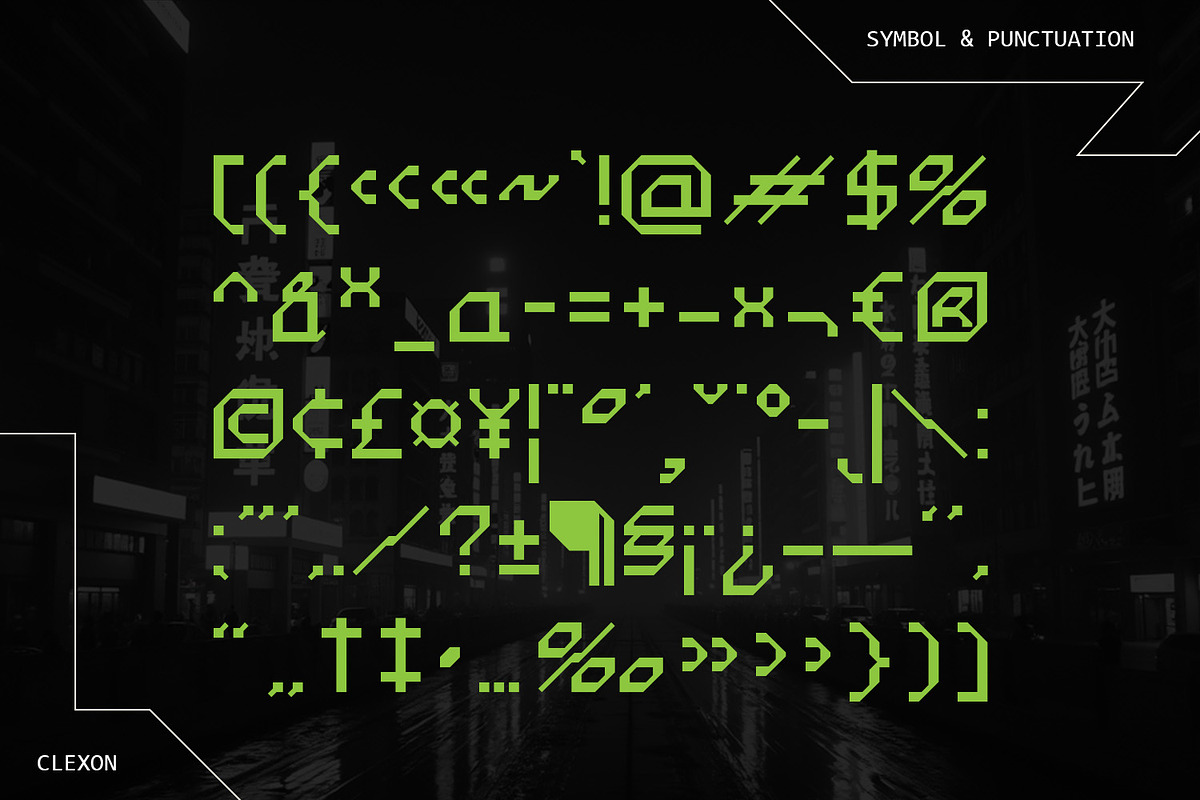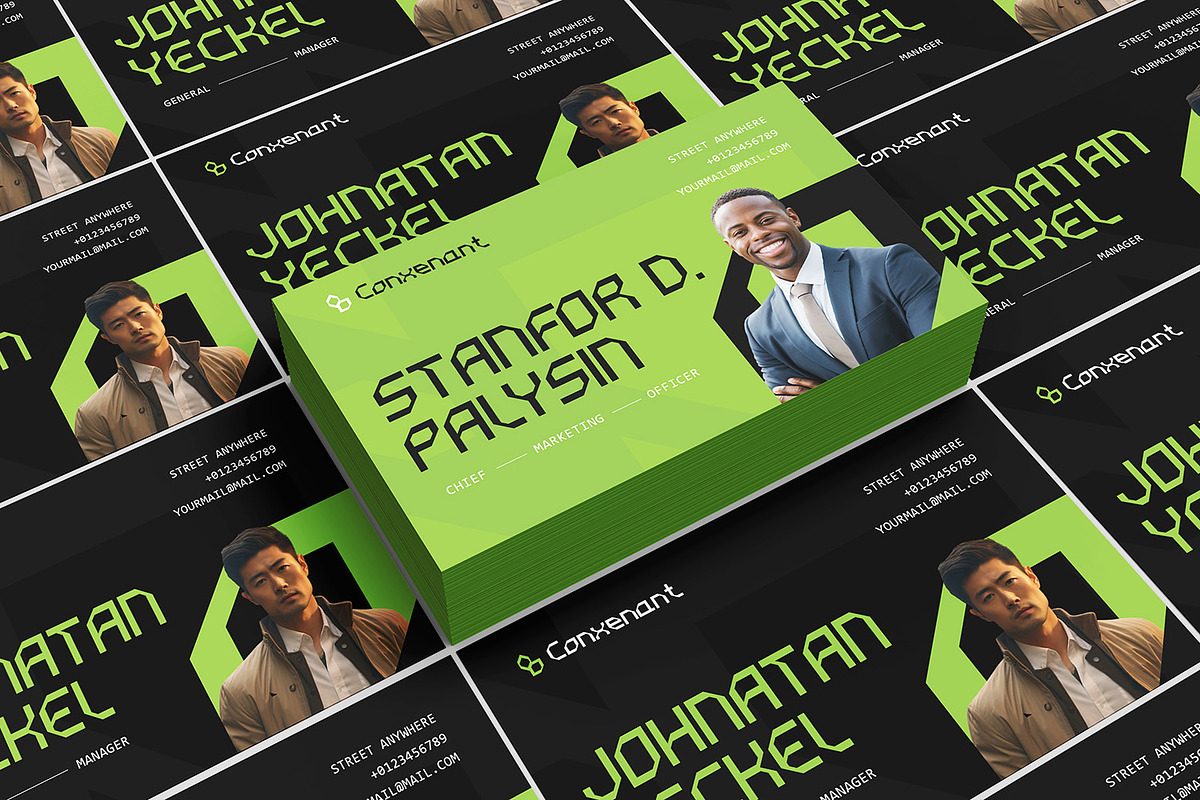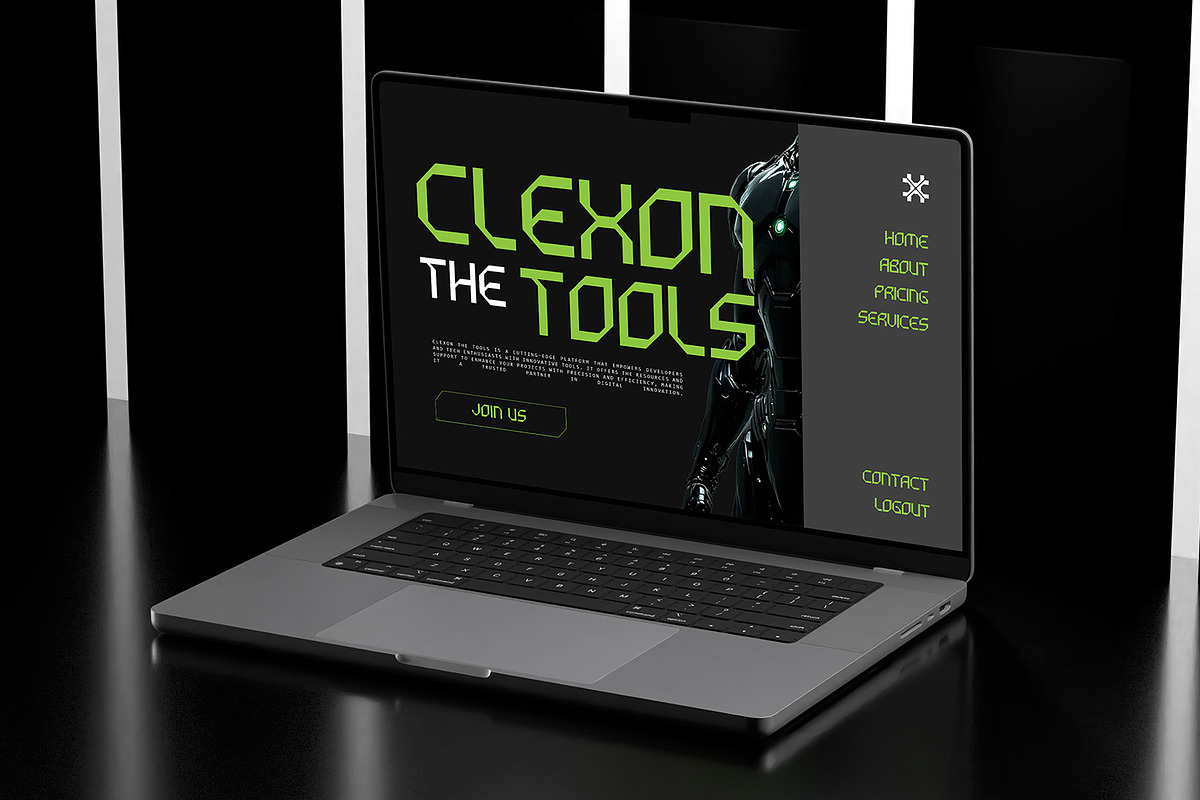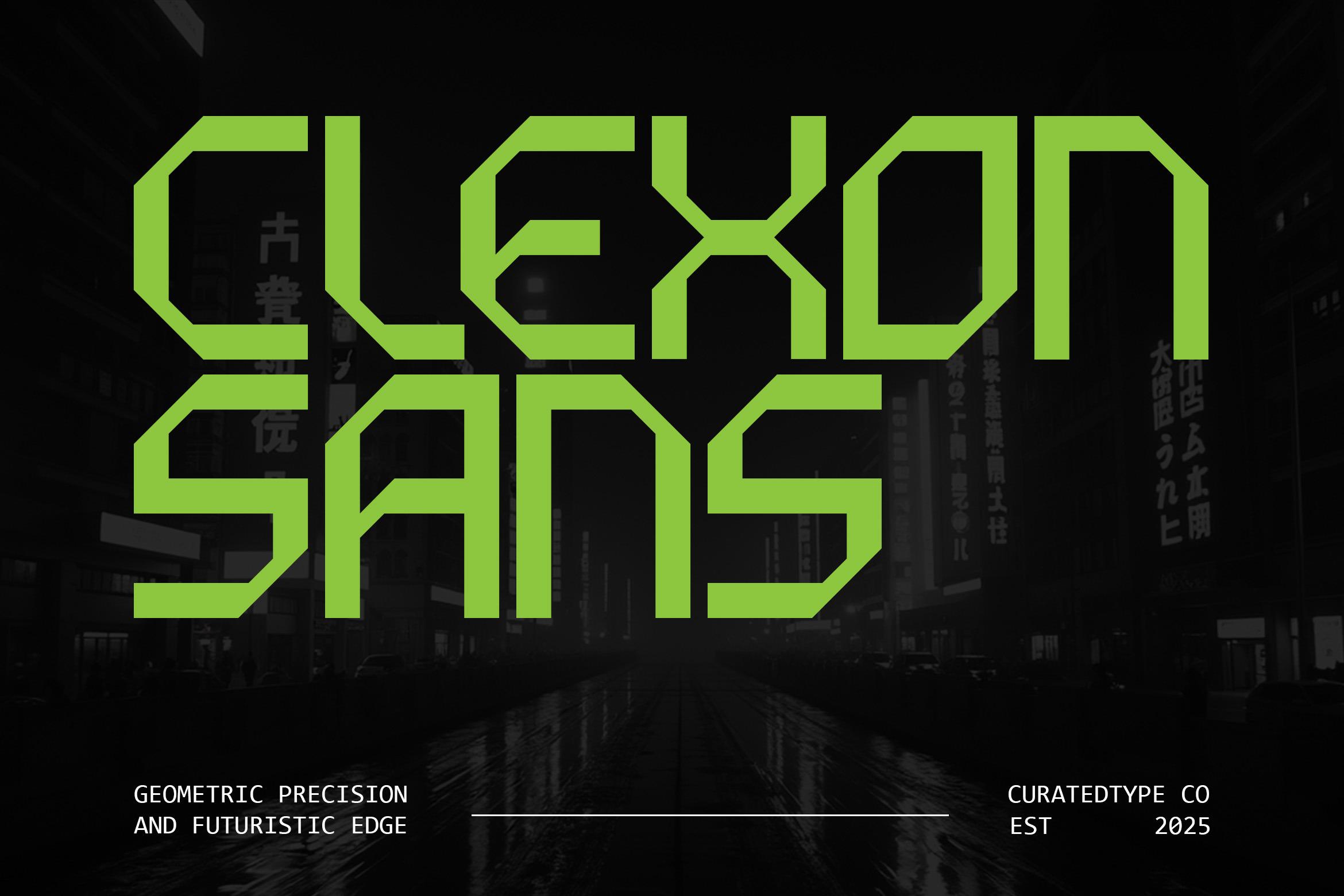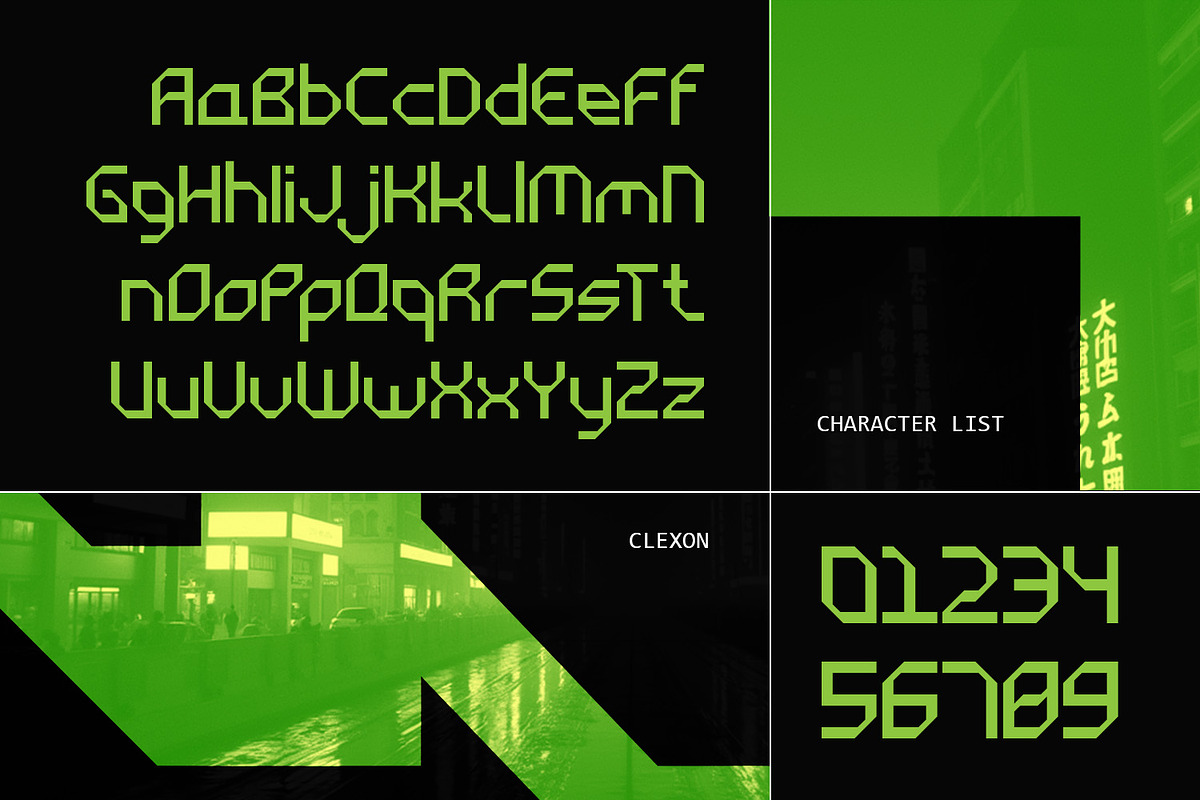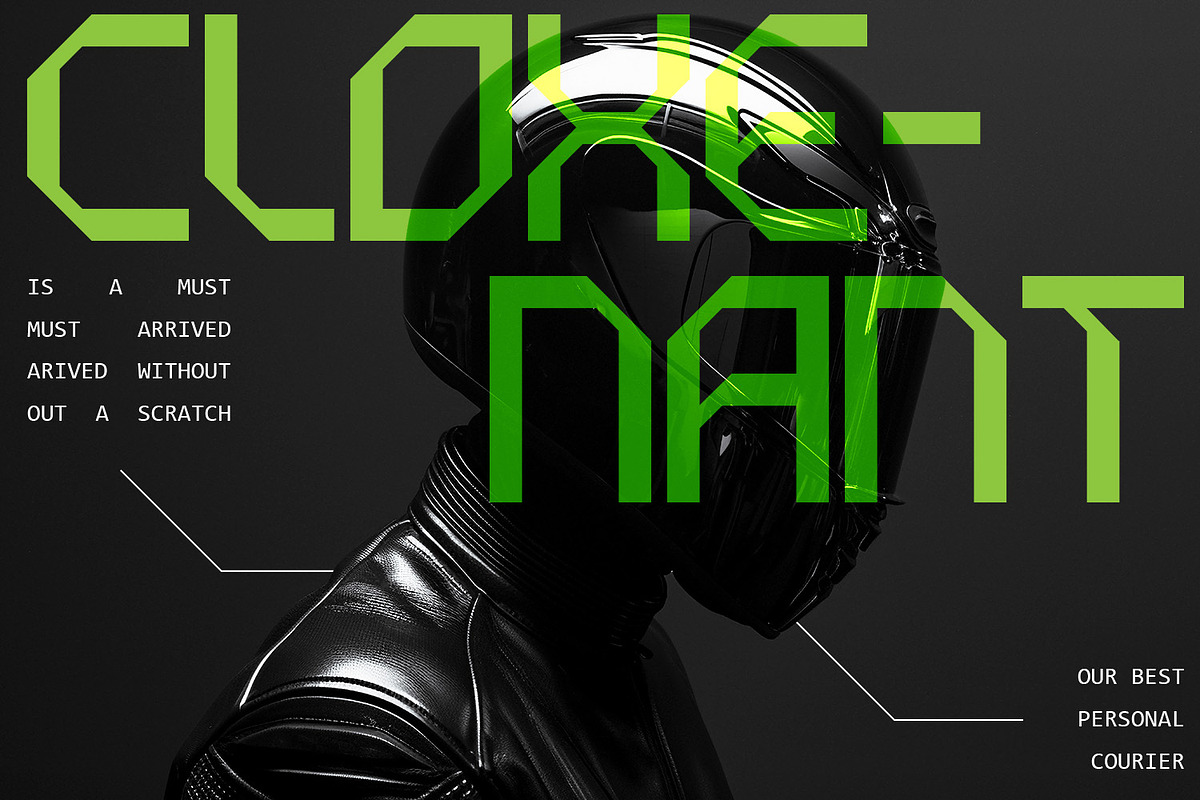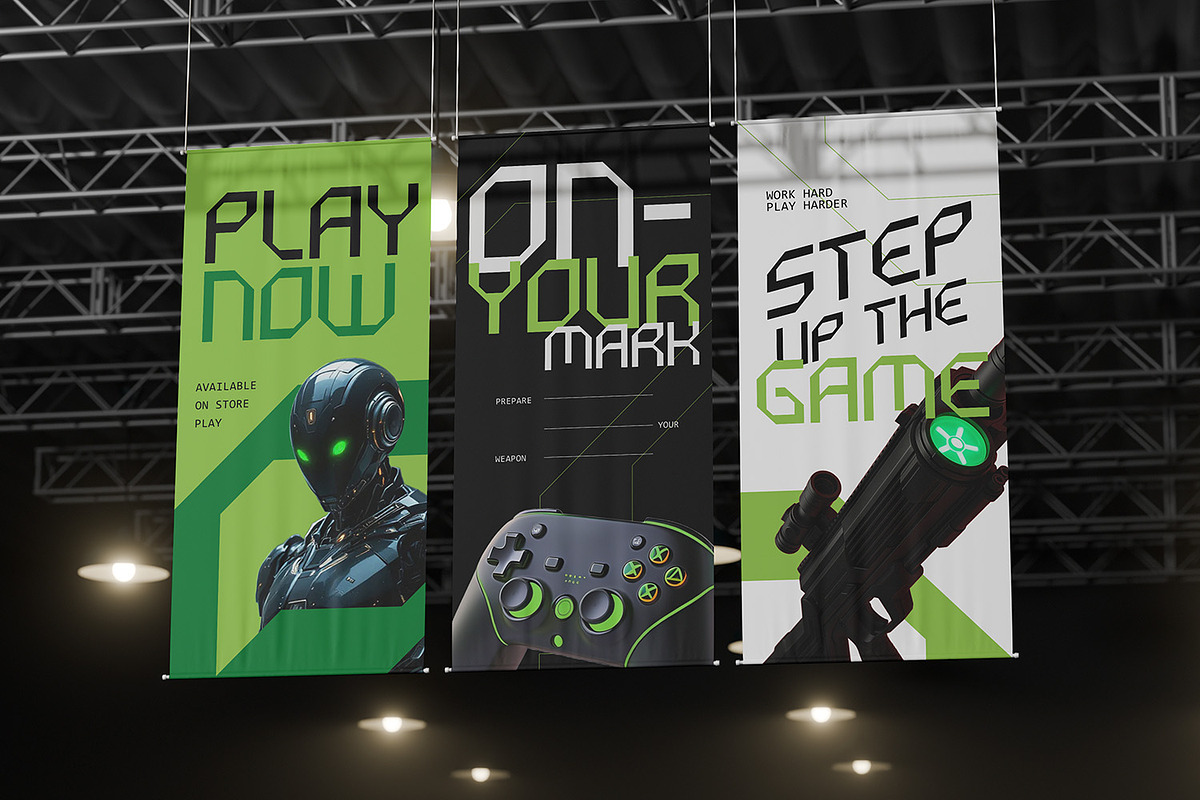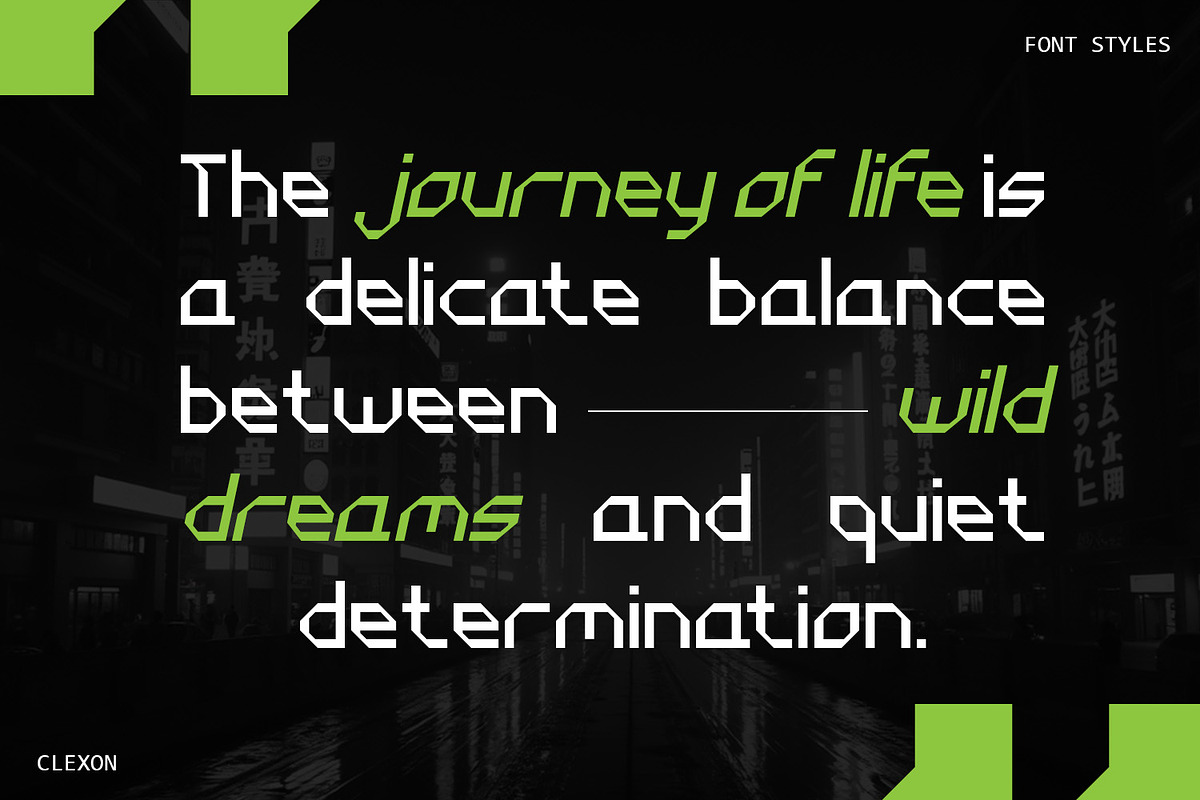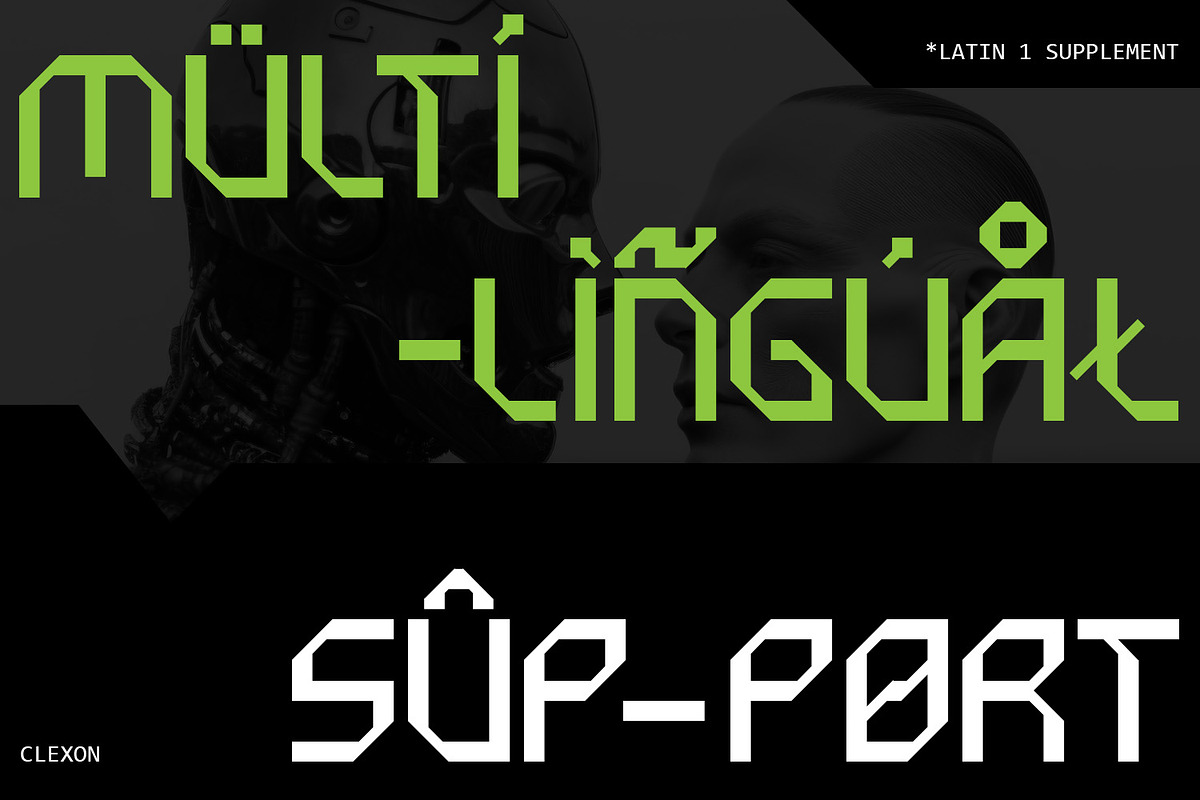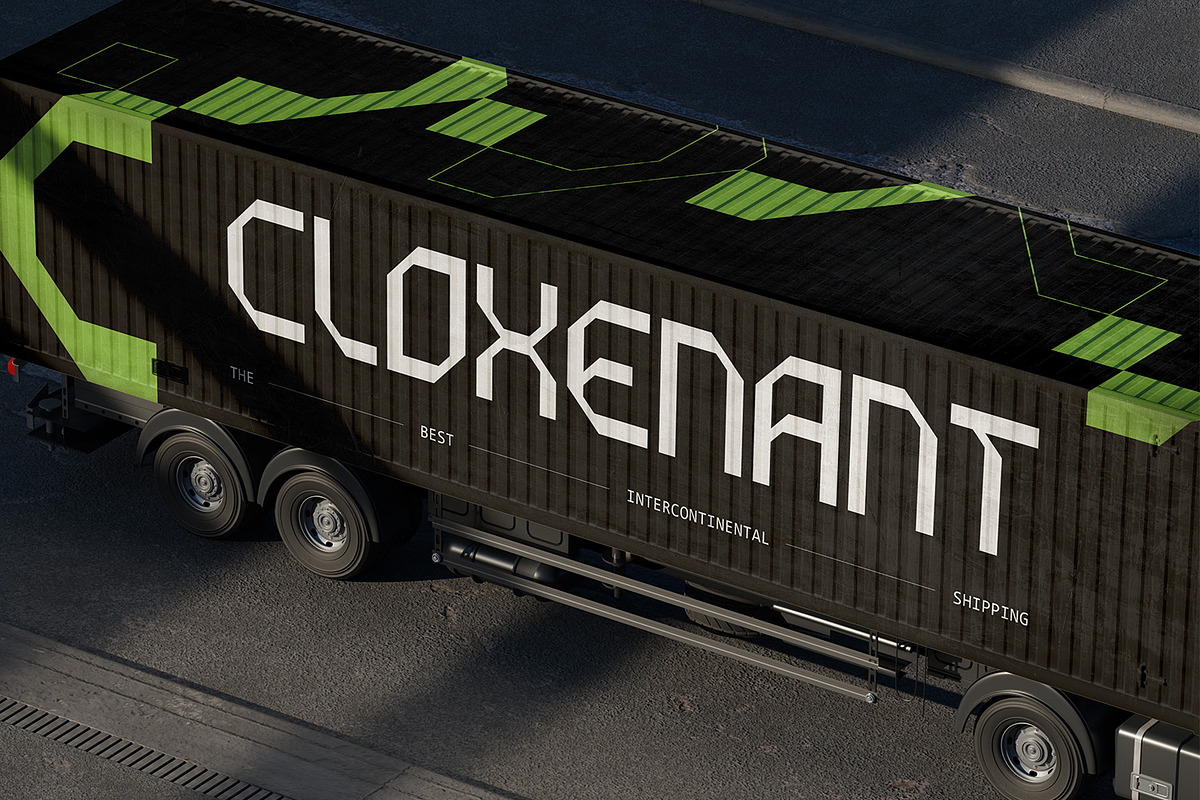
Clexon - Futuristic Geometric Font
Clexon is a striking font with a futuristic, digital aesthetic, making it a standout choice for modern design projects. Displayed in bright neon green against a dark background, it features sharp angles and a slightly pixelated appearance, reminiscent of digital screens or cyberpunk typography. Each character, from uppercase and lowercase letters to numbers 0 through 9, is meticulously designed, ensuring a consistent high-tech feel. The organized layout highlights every design element clearly, while the blurred cityscape background with neon green light reflections enhances its futuristic vibe, creating an immersive visual experience.
Clexon’s versatility makes it ideal for a range of applications, from digital art and video games to futuristic branding. Its bold design and digital aesthetic are perfect for creating eye-catching titles, logos, or user interfaces that convey innovation and modernity. The sharp angles and pixel-like elements add texture and depth, making designs more engaging. The striking neon green color not only draws attention but also reinforces its tech-inspired identity. Whether for game interfaces, tech startup branding, or digital artwork, Clexon can elevate the overall design and leave a lasting impression.
- 2 Styles Font : Regular and Oblique
- Standard letter A-Z and a-z
- Numeral, Symbol, and Punctuations